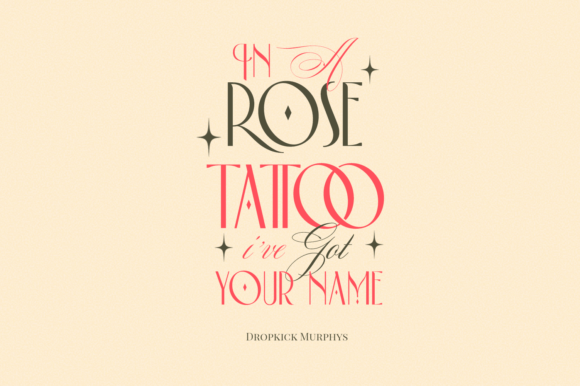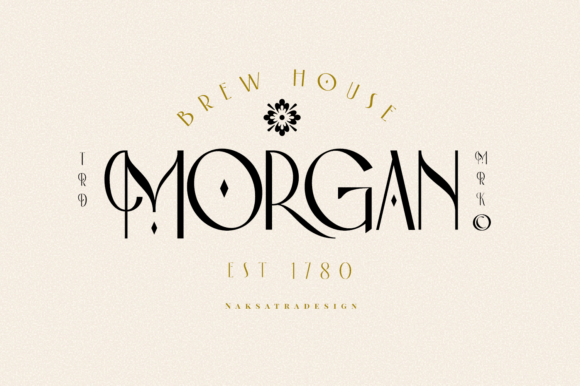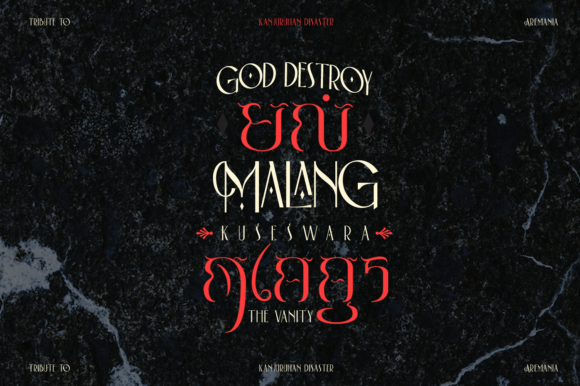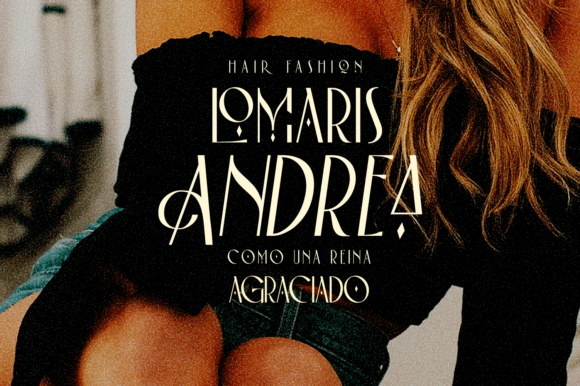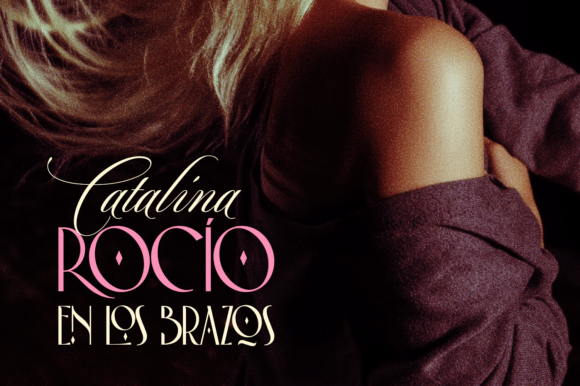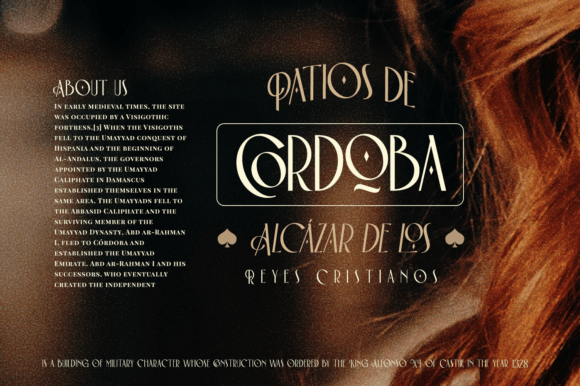
Unlocking the Secrets of Baerus Font
Imagine you’re brainstorming ideas for your next creative project, and suddenly, the perfect font pops into your head – one that exudes luxury, elegance, and modernity. That’s the moment when the Baerus Font makes its presence felt, elevating your design from ordinary to extraordinary. This stunning font is a masterpiece inspired by the art deco era, and its high-quality design is sure to leave a lasting impression on your audience.
As a valuable resource for designers, Baerus Font offers a unique blend of style and functionality, making it an essential addition to any design toolkit. With its transparent background and support for multilingual text, this font is perfect for projects that require a touch of sophistication and flair. Whether you’re working on a commercial campaign or a personal design project, Baerus Font is sure to be a game-changer.
Key Features of Baerus Font
- High-quality design resource suitable for creative projects, including logos, graphics, and typography.
- Designed with precision and attention to detail, resulting in a crisp and clean visual appearance at resolutions up to 300 DPI.
- Supports various font sizes, from small text to large headings, making it a versatile choice for a wide range of creative projects.
- Perfect for designers seeking a modern and elegant font to elevate their designs and leave a lasting impression.
Honest Review: Baerus Font
I recently stumbled upon the Baerus Font while searching for a design resource to elevate my creative project. The moment I downloaded it, I was impressed by its high quality and versatility.
Here’s what works well:
- ✨ Unique and modern design aesthetic that adds a touch of sophistication to any layout
- ✨ Highly legible and clear, making it perfect for body text and headings
- ⚠️ Limited character set, which may not be suitable for projects requiring multiple languages
- ⚠️ Some users may find the font too modern or experimental for their taste
Overall, I’m impressed with the Baerus Font and would recommend it to designers looking for a high-quality, modern font for their creative project. Its free download and transparent background make it a valuable addition to any design resource library.
Baerus Font is commonly used in a variety of design projects, including logos, brochures, business cards, and website headers. Its versatility and high-quality design make it a popular choice among designers and creatives.